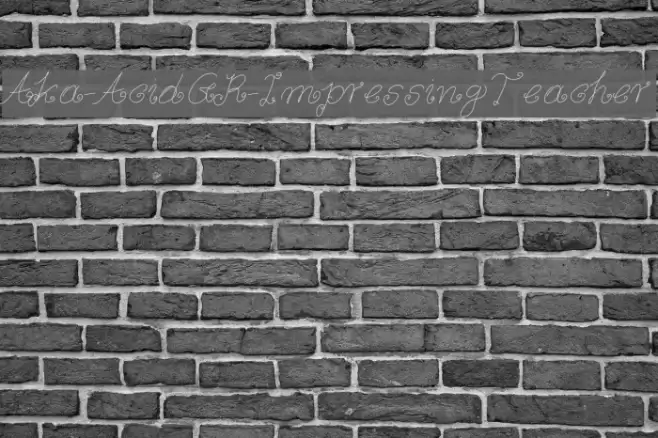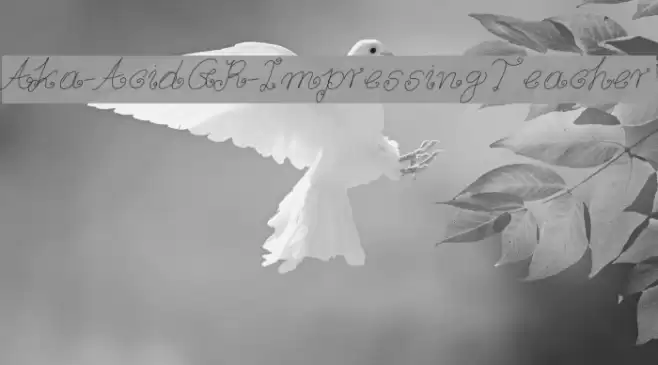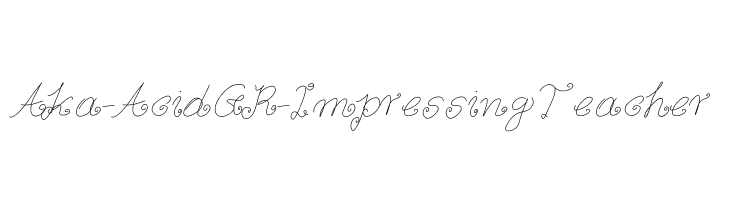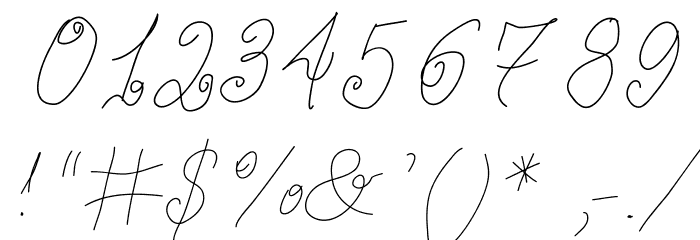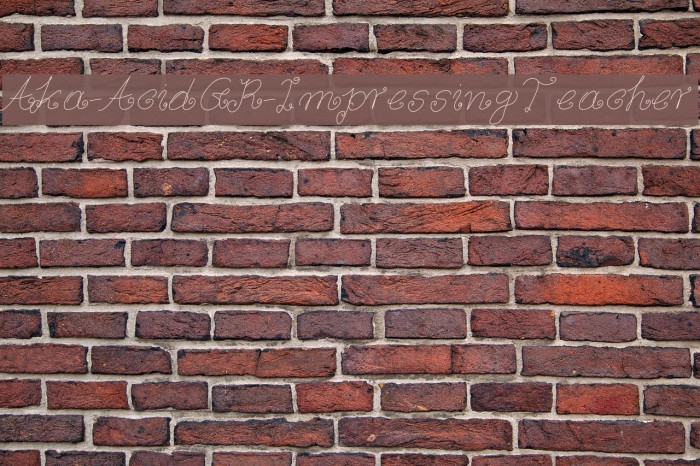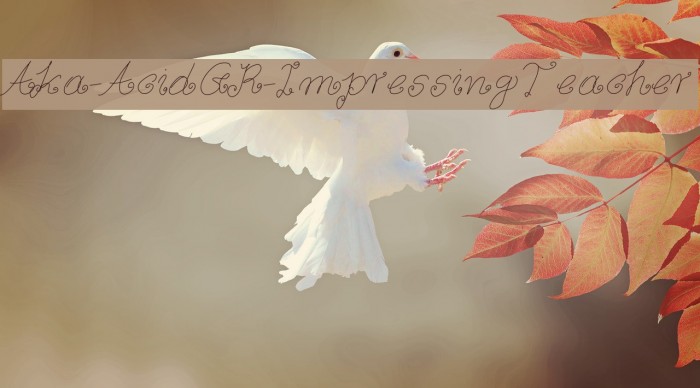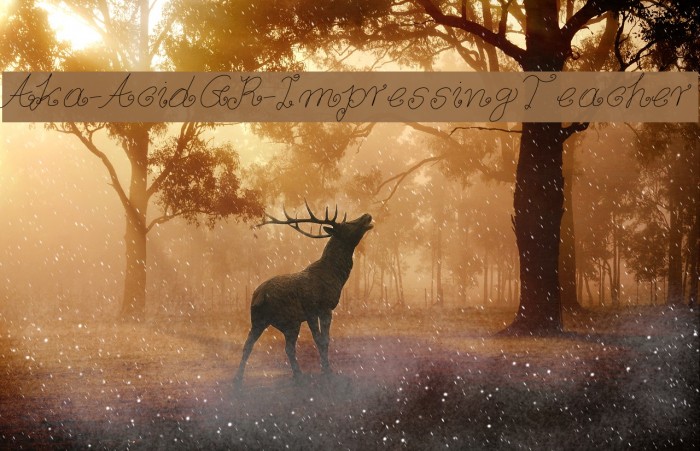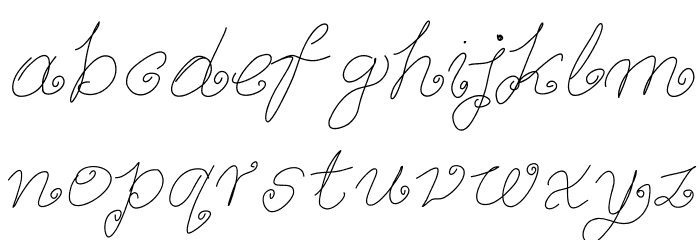
Aka-AcidGR-ImpressingTeacher Font
Aka-AcidGR-ImpressingTeacher Description
This font features an elegant and whimsical script style, characterized by its flowing, interconnected letters and playful loops. The uppercase letters exhibit a graceful flair with decorative swirls, while the lowercase letters maintain a consistent cursive form, enhancing readability. Numbers and special characters are crafted with the same artistic touch, ensuring a cohesive look across all glyphs. The font's delicate lines and intricate details make it suitable for creative and artistic projects, adding a touch of sophistication and charm.
An elegant and whimsical script font with flowing, interconnected letters and playful loops from Uncategorized fonts.
- Proposed Projects: Ideal for wedding invitations, greeting cards, branding, and artistic projects requiring a touch of elegance.
- Use Case: Logos, Invitations, Artistic projects